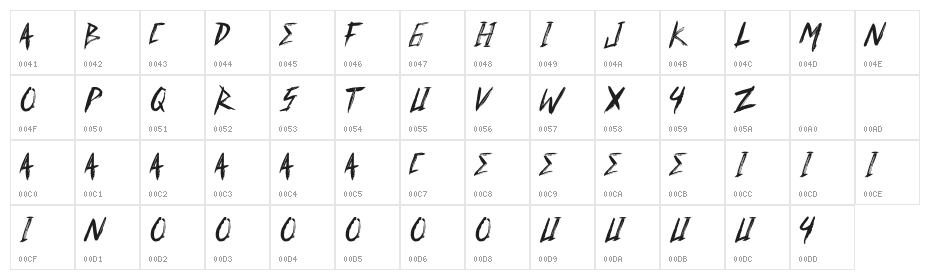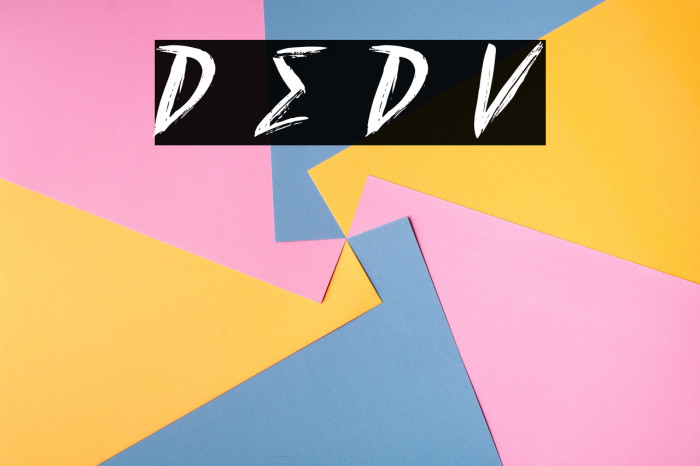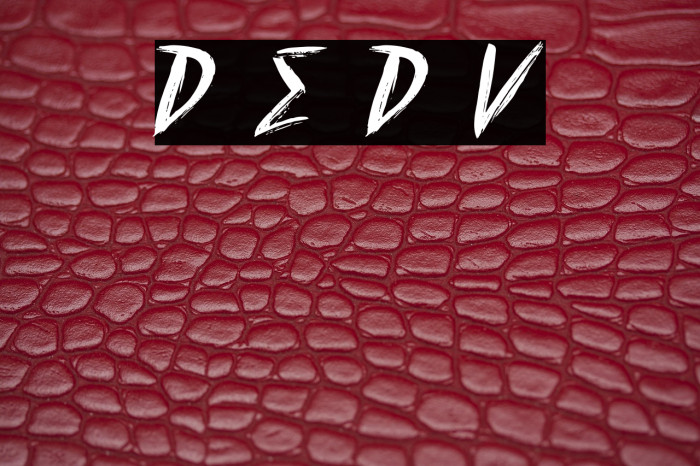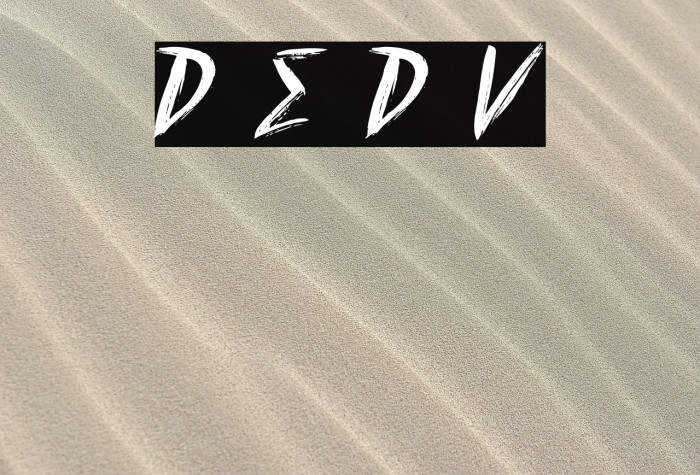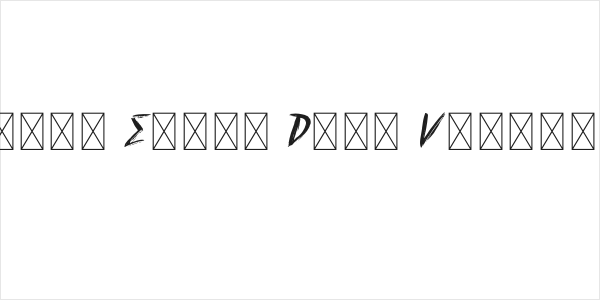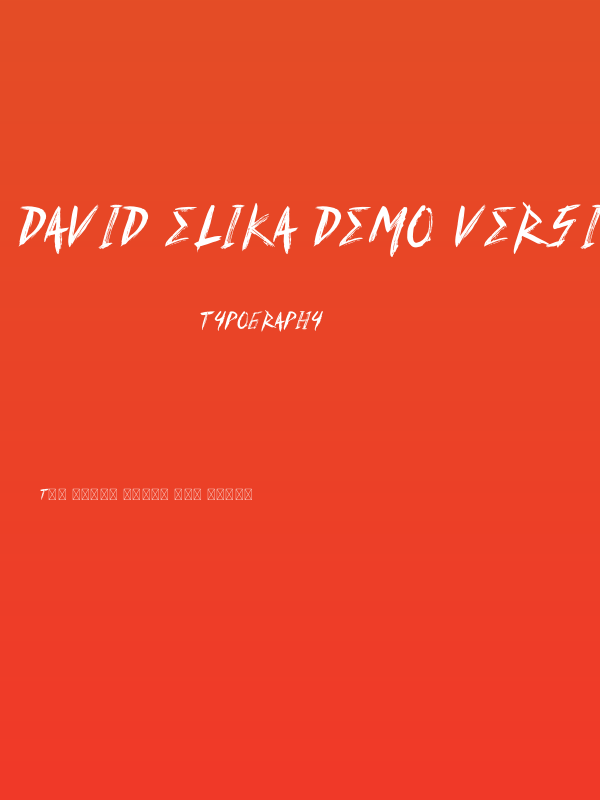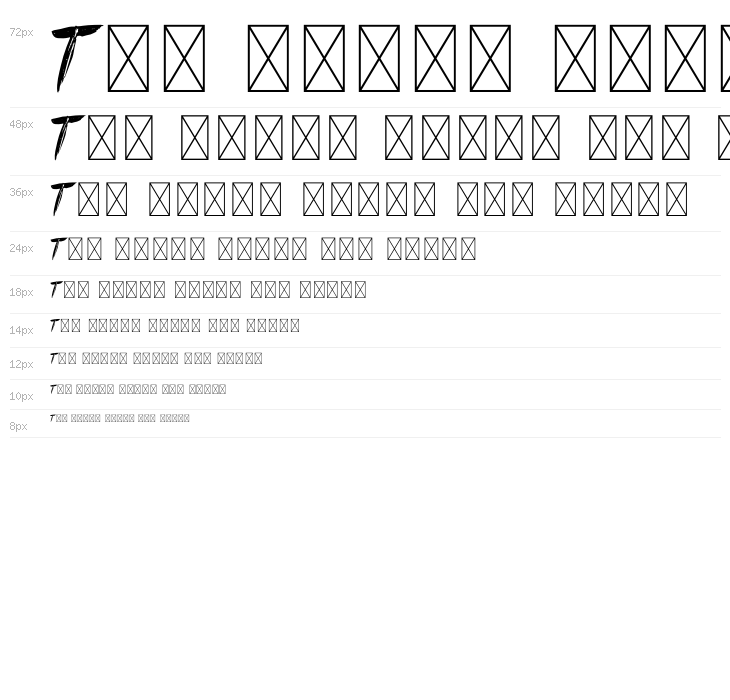
David Elika Demo Version Font
David Elika Demo Version Description
This font features a bold and dynamic brush style, characterized by its expressive and energetic strokes. The uppercase letters exhibit a sense of movement and fluidity, with sharp angles and varying stroke widths that create a sense of urgency and excitement. The overall appearance is rough yet controlled, giving it a hand-painted look that is both artistic and impactful. The font's design is suitable for projects that require a strong visual presence and a touch of creativity.
| Proposed Projects | Ideal for poster designs, branding projects, album covers, and any creative work that requires a bold and artistic touch. |